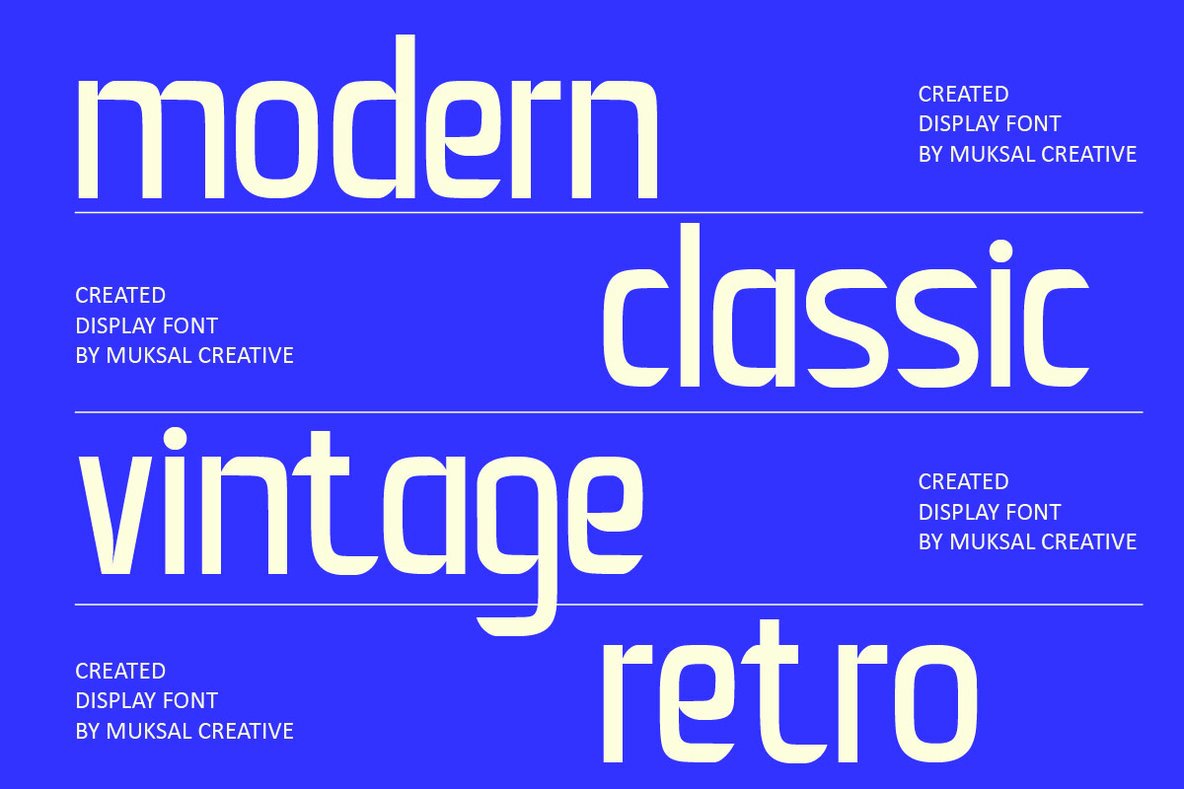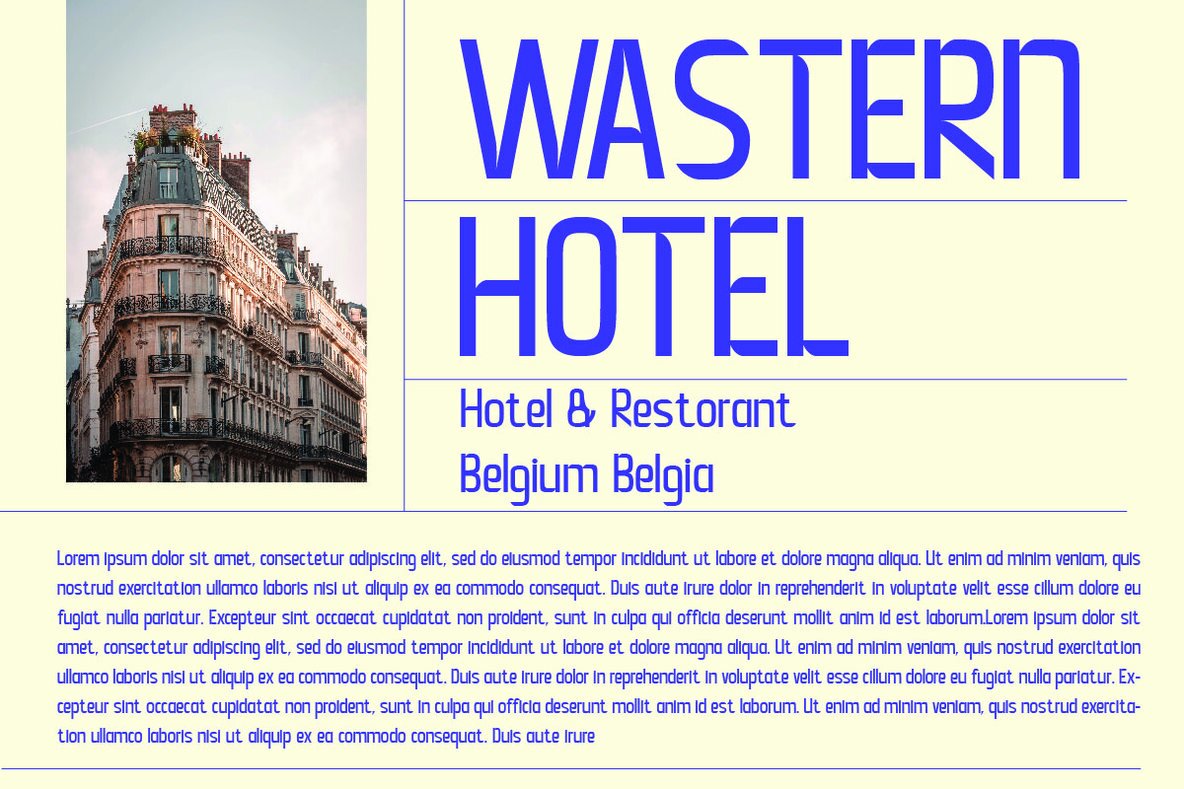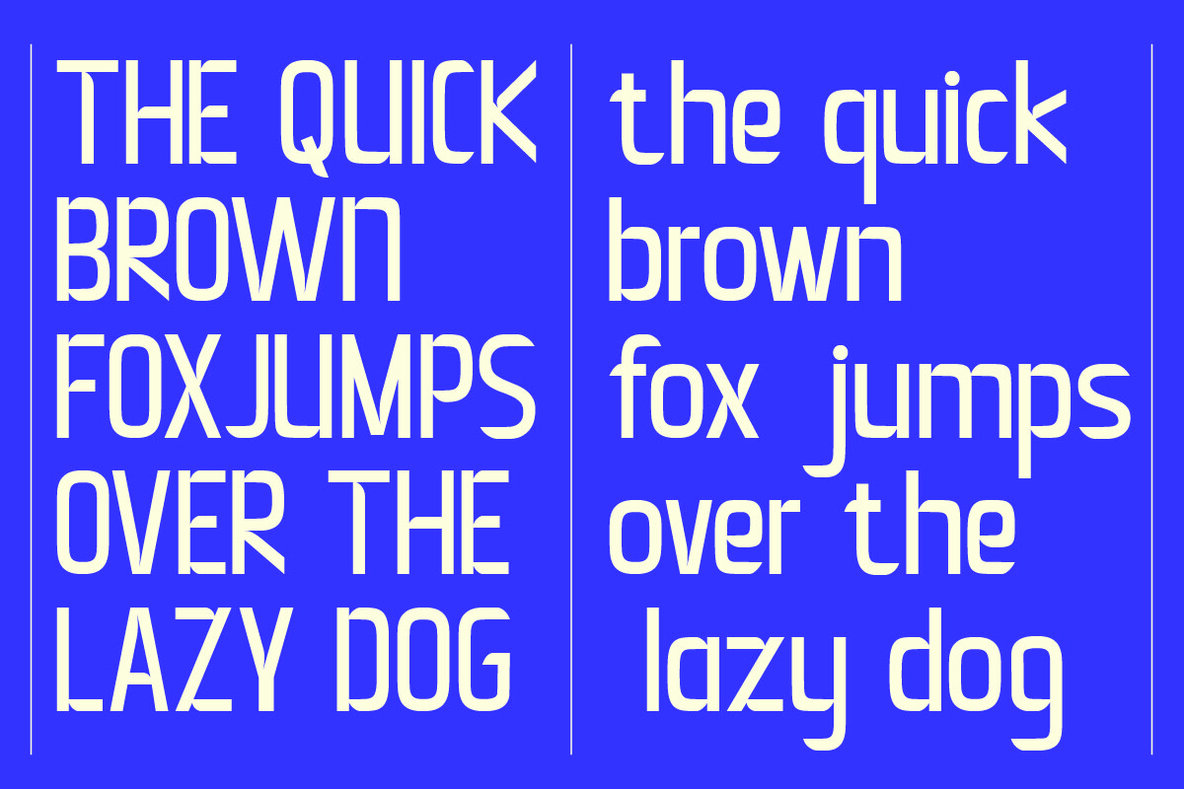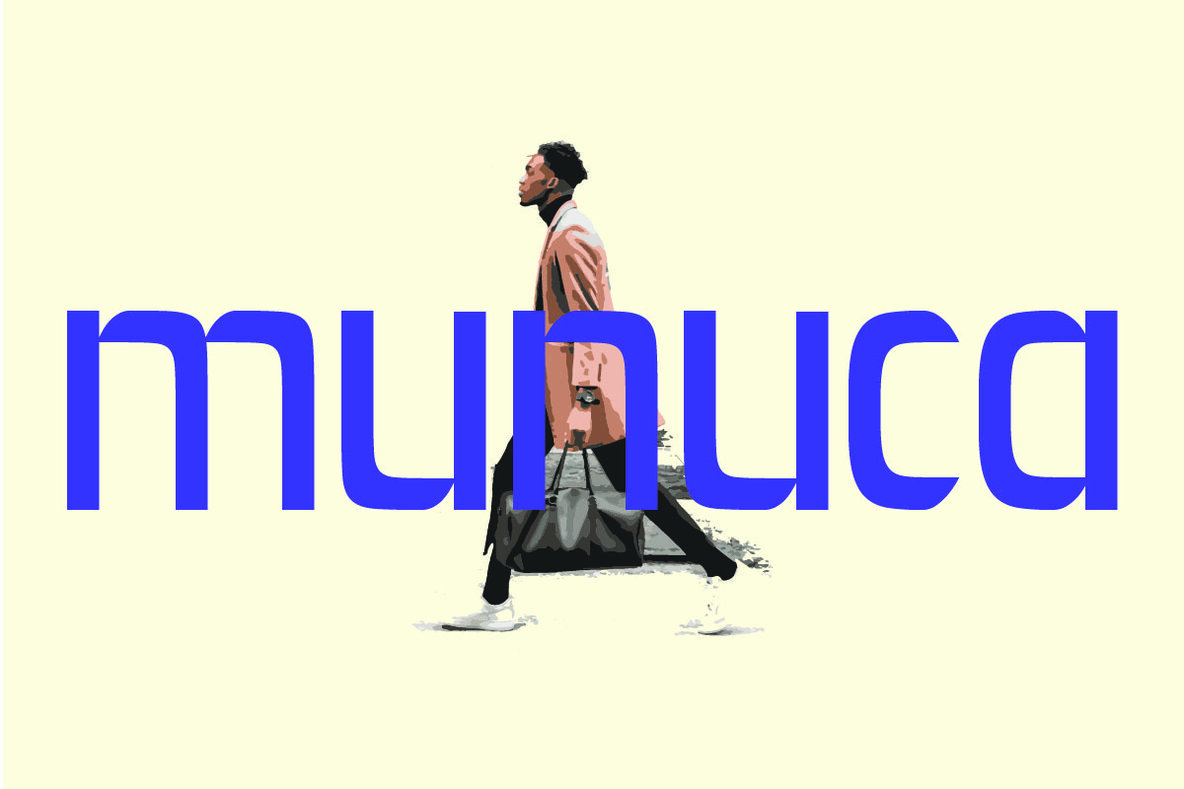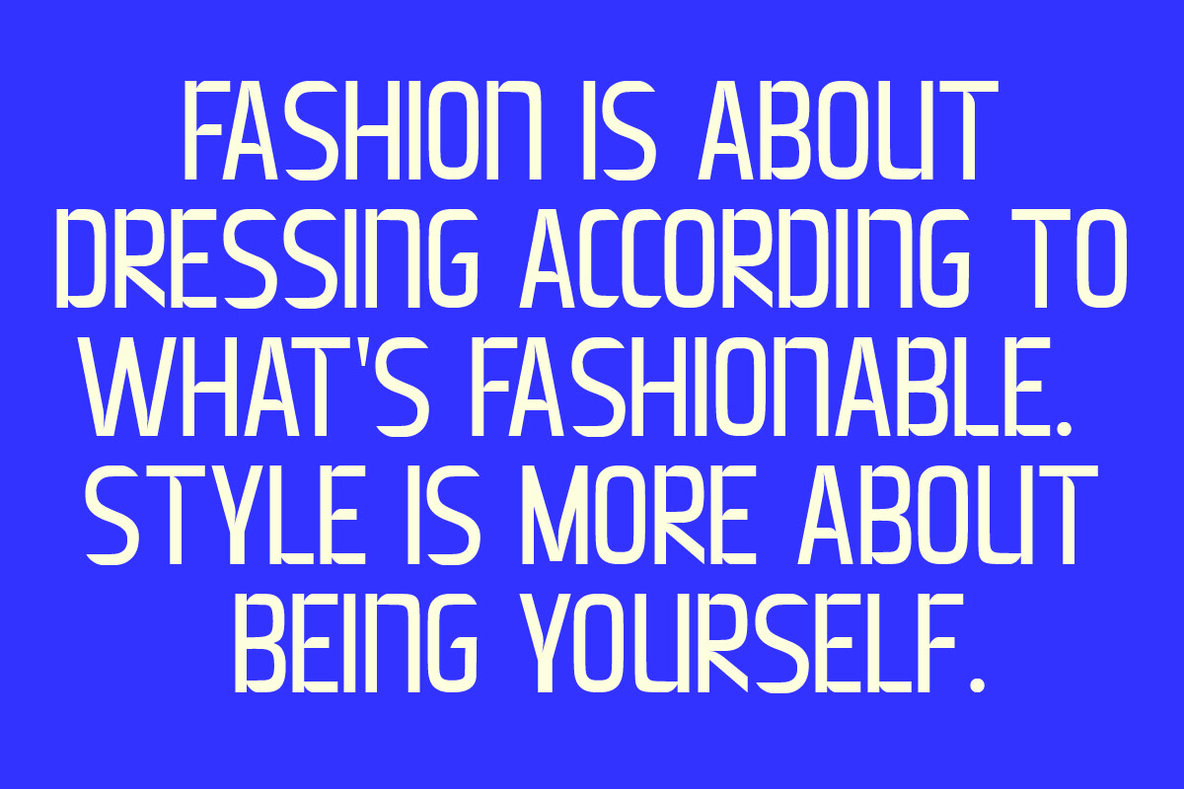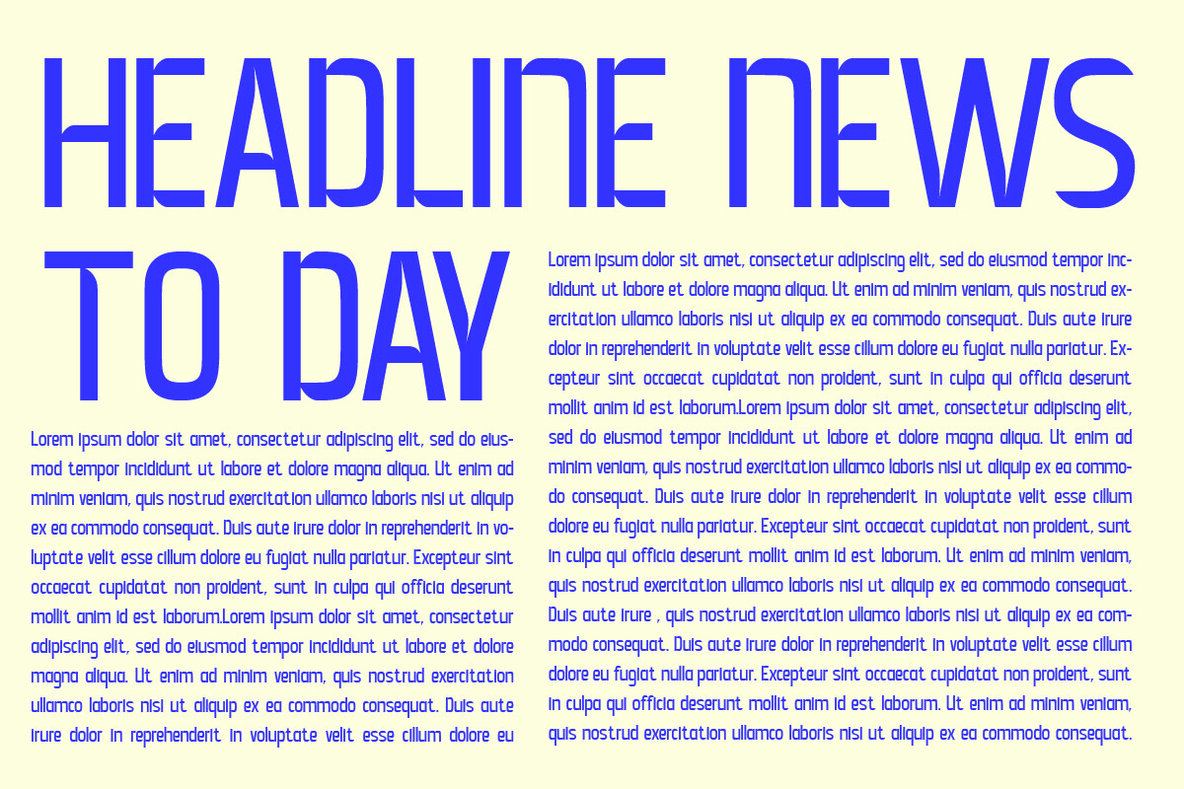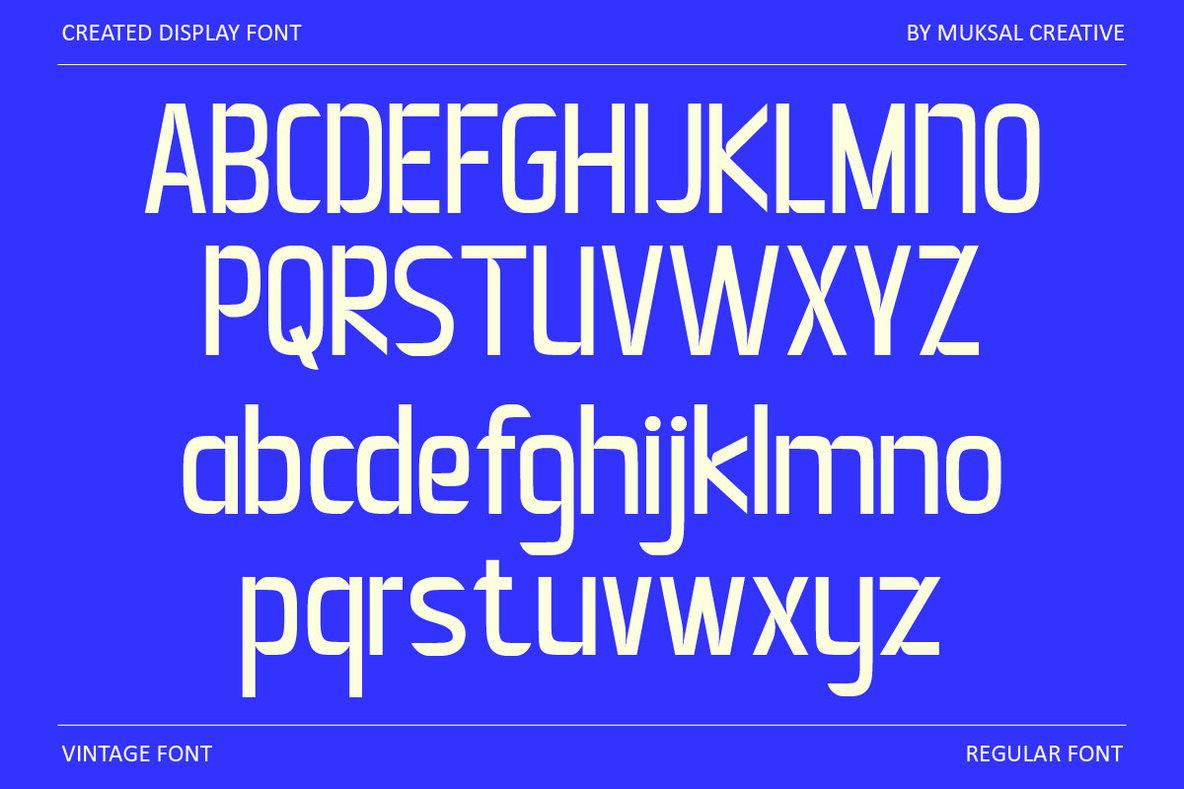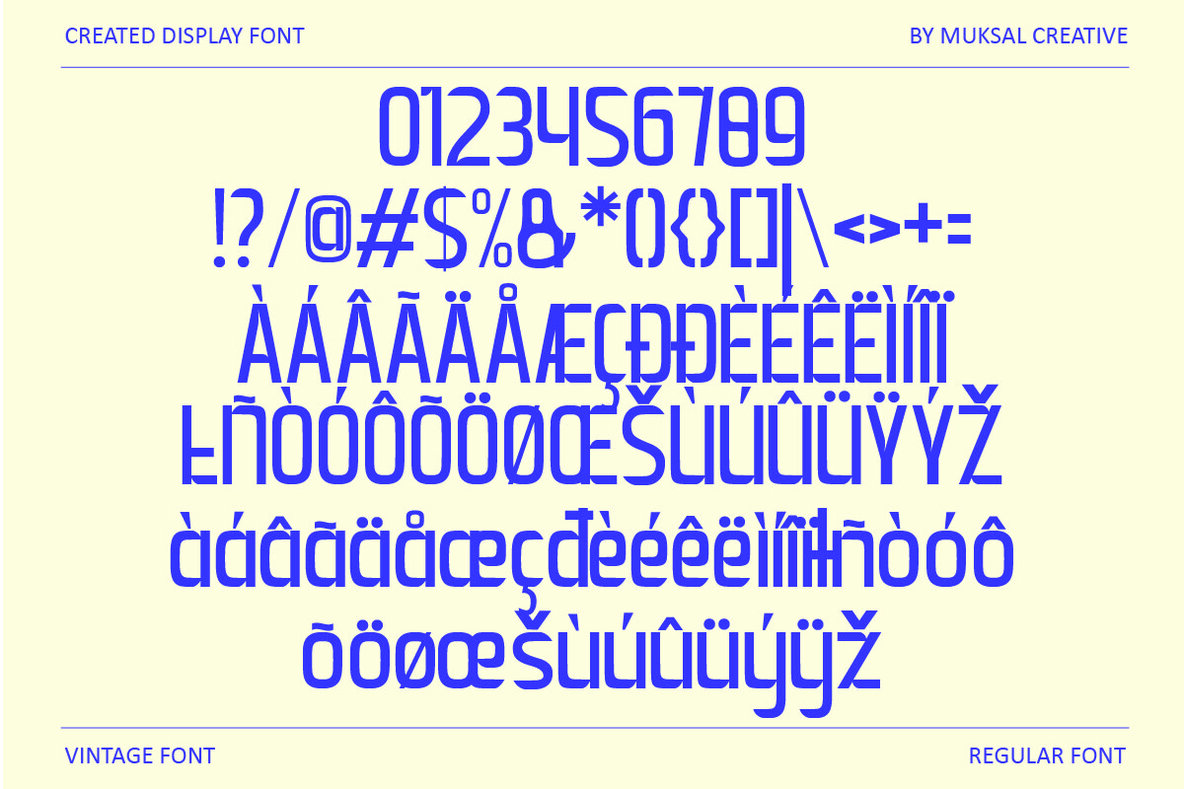
Created Font
Created Regular
Modern Display Vintage Font is a highly versatile font that is perfect for a wide range of design projects. Whether you're working on editorial projects, logo design, clothing branding, product packaging, magazine headers, or any other project that requires a stylish and vintage look, Modern Display Vintage Font will add a touch of elegance to your work.